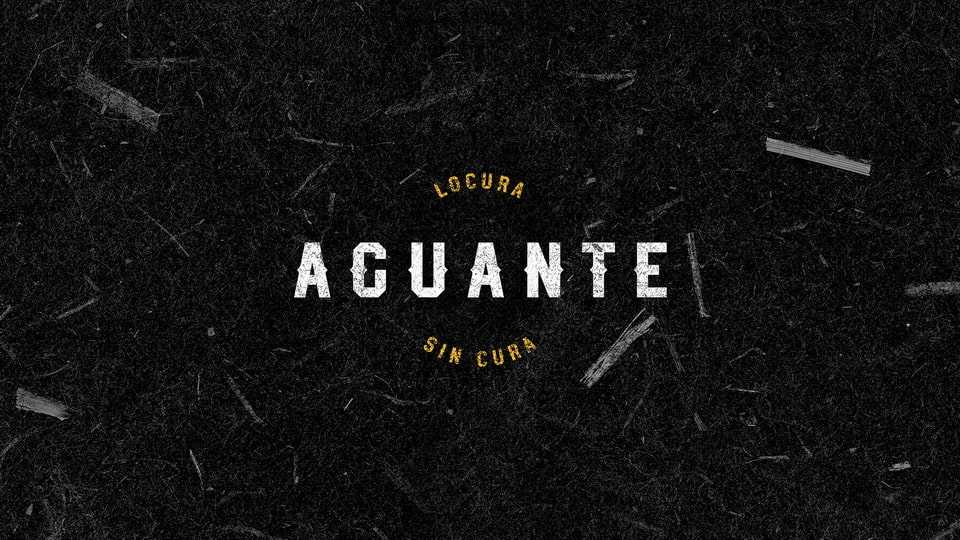
Download Aguante font, a blocky display typeface that’s all about unleashing the energy and boldness of sports in every letter. Each character is meticulously crafted with strong, angular lines and a bold presence, making Aguante font perfect for sports-related designs.